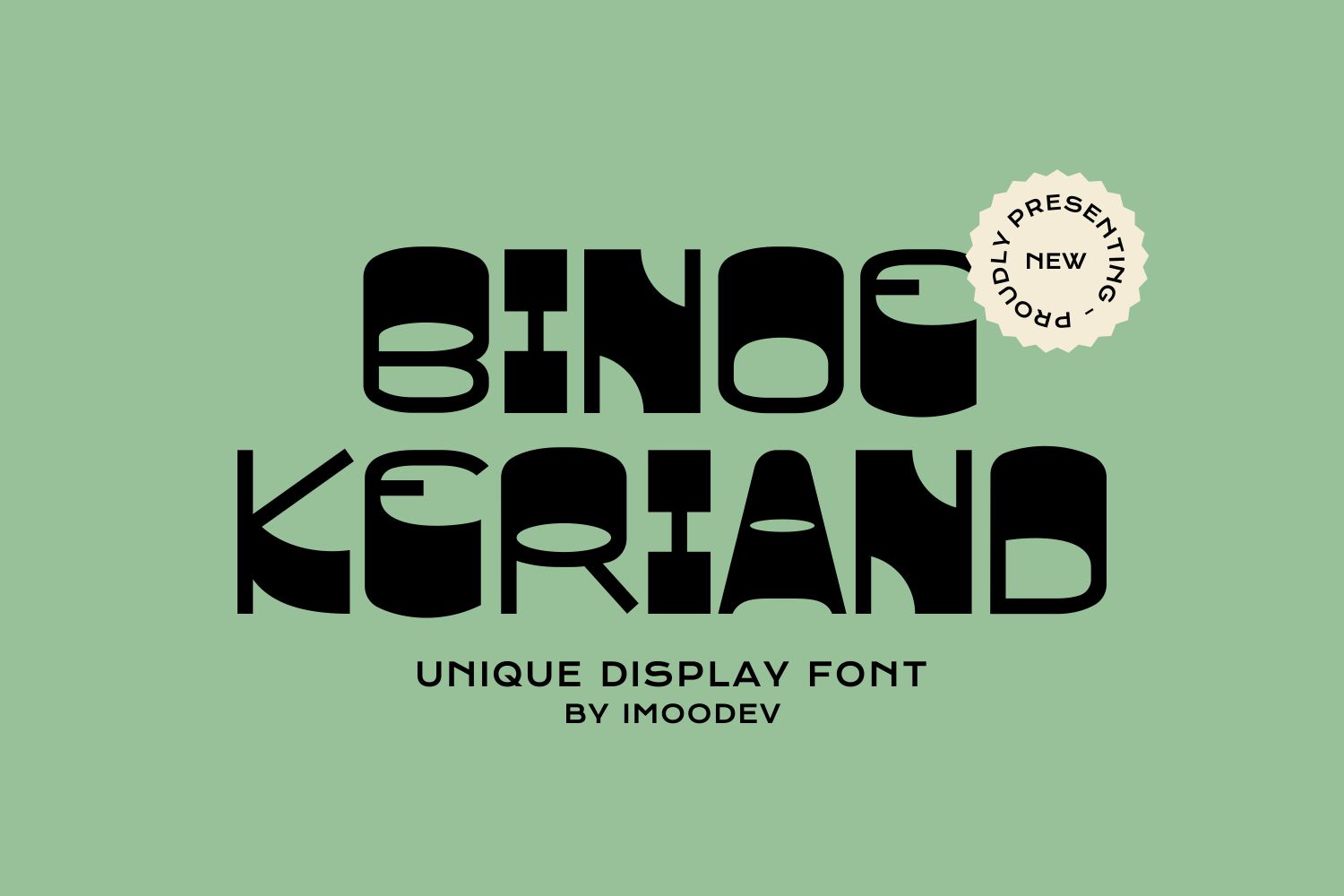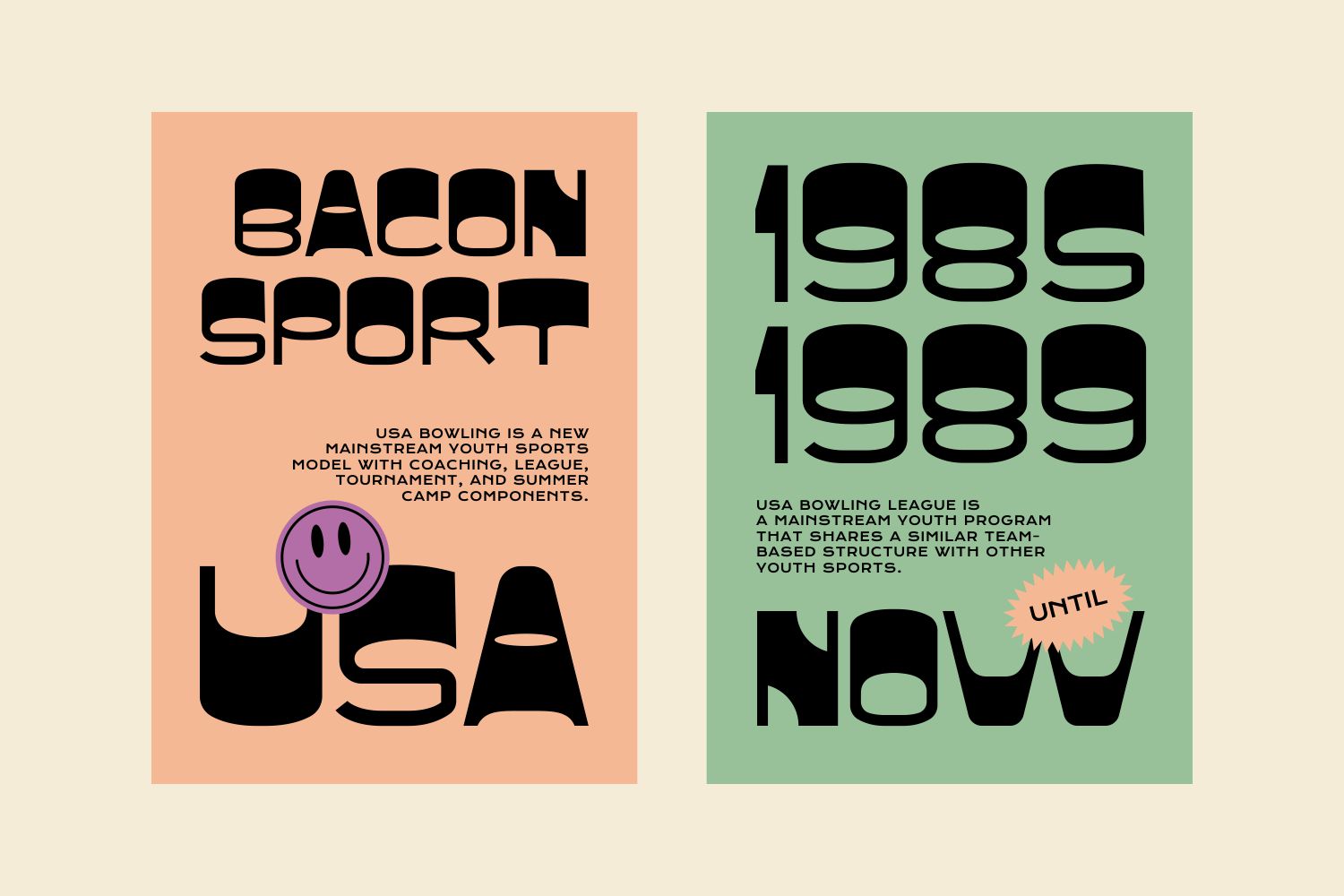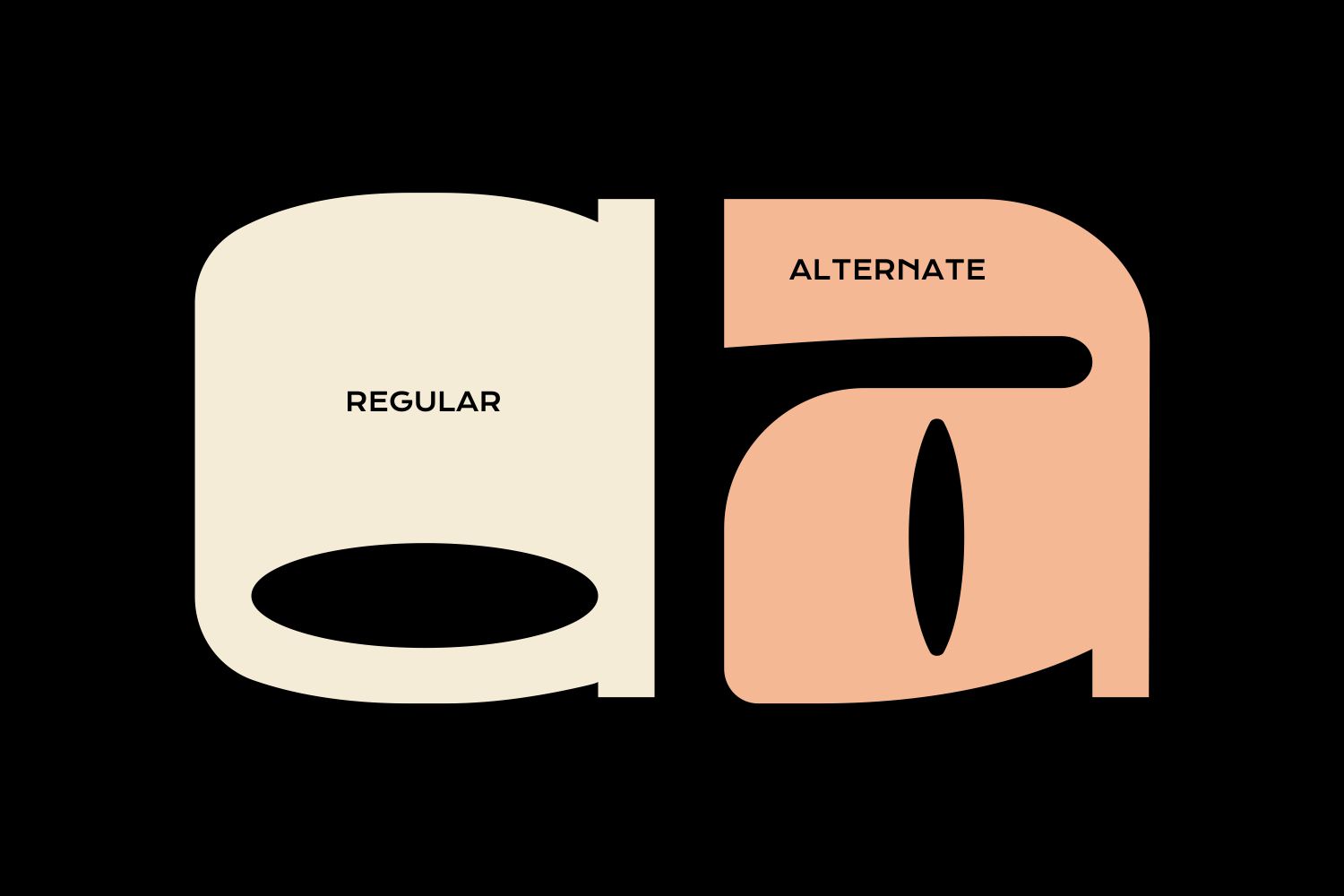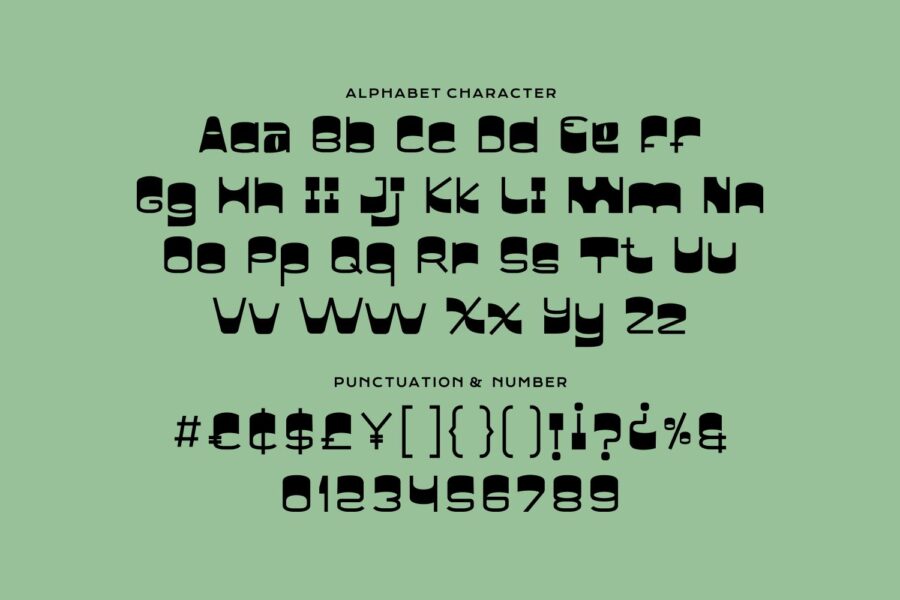
Binoe Keriand is a unique display font that combines bold experimental shapes with playful geometric forms. Its heavy strokes, unusual cutouts, and rounded counters create a striking visual style that instantly grabs attention. Perfect for projects that need a creative edge, Binoe Keriand delivers a modern retro vibe with a distinct artistic personality.
With alternate characters and versatile design options, Binoe Keriand is ideal for posters, music covers, branding, apparel, and eye-catching editorial layouts. Whether used in digital or print, this font makes a bold statement and ensures your design stands out with originality and style.
Binoe Keriand